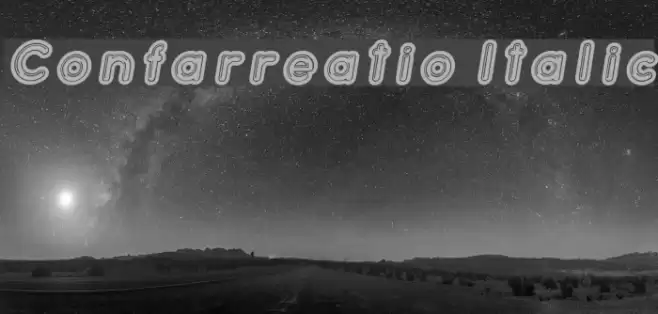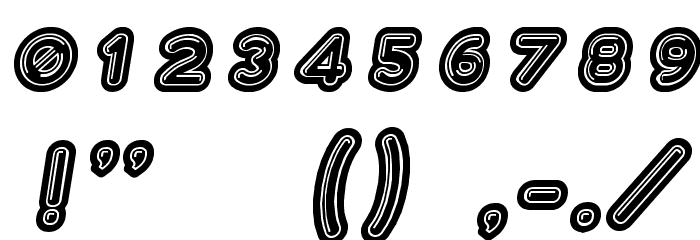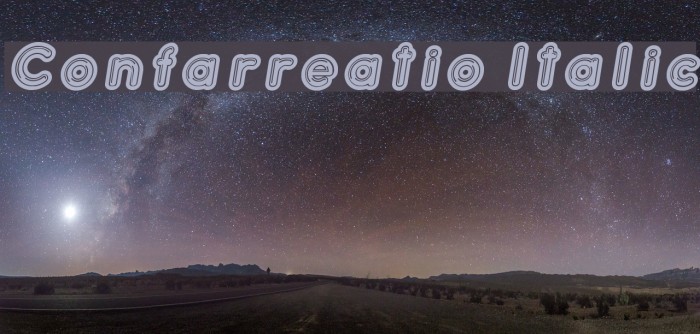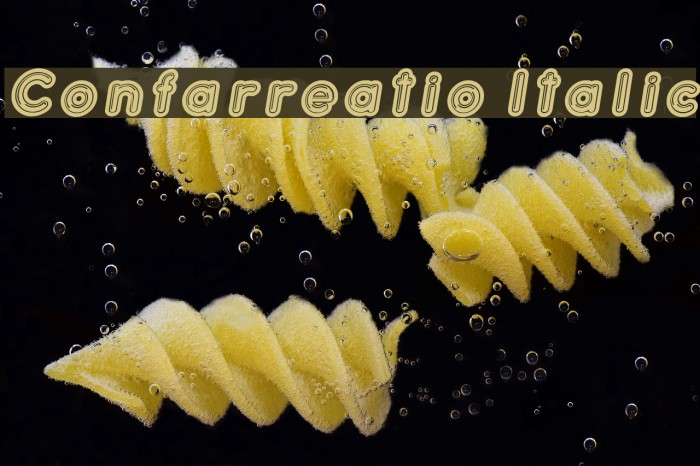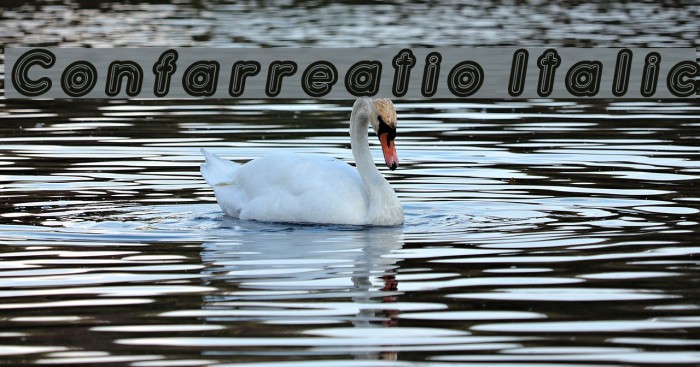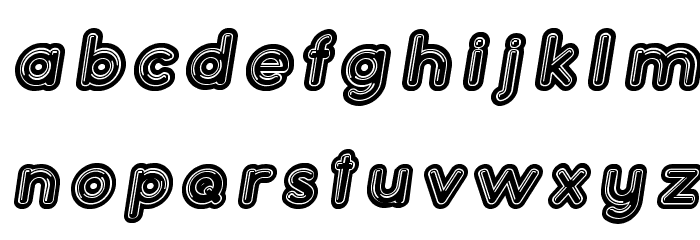
Confarreatio Italic Font
Confarreatio Italic Description
This font features a bold, playful style with a unique outline effect, giving it a three-dimensional appearance. The characters are rounded and slightly condensed, with a consistent stroke width that maintains a uniform look across both uppercase and lowercase letters. The numbers and special characters follow the same design principles, ensuring a cohesive visual experience. The italic slant adds a dynamic and energetic feel, making it suitable for eye-catching designs.
A bold, outlined, and slightly condensed italic font with a playful, three-dimensional look from Uncategorized fonts.
- Proposed Projects: Ideal for children's book covers, playful branding, posters, and any project requiring a fun and engaging typeface.
- Overall Style: Playful, Modern